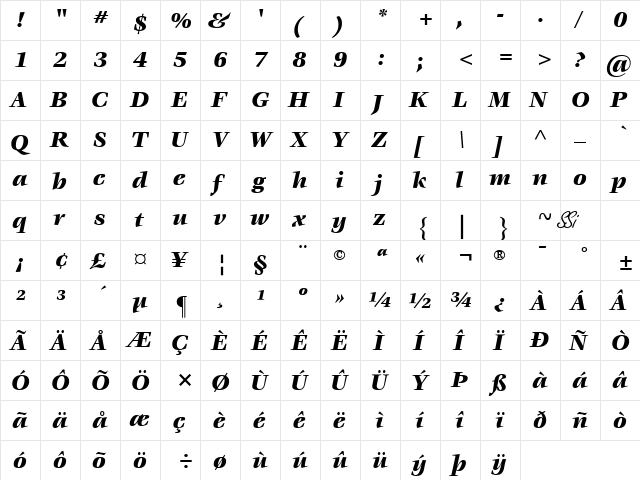
Vorace Black SSi Black Italic
Design Context for Vorace Black SSi Typeface
Vorace Black SSi is a composed and adaptable typeface that performs quietly and consistently across a wide range of design contexts. The slanted form adds forward momentum and visual energy.
Pro Tip: Try Vorace Black SSi for annotation and caption copy alongside an upright companion — the contrast in angle creates a dynamic but ordered typographic system.